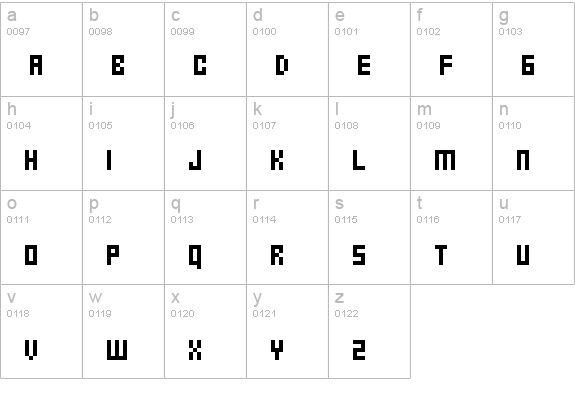
Ernest Font Details
Ernest font is a modern and elegant typeface that exudes sophistication and style. Its clean lines and sleek design make it perfect for a wide range of design projects, from branding to editorial work. The versatility of Ernest font allows it to be used in both digital and print media with ease. One of the best things about Ernest font is that it is completely free to download. Yes, you read that right - this high-quality font is available for free at FontsMarket.com! Whether you are a seasoned designer looking to add a new font to your collection or a beginner searching for the perfect typeface for your project, Ernest font is a fantastic choice that won't cost you a penny. Don't miss out on the opportunity to enhance your designs with the beauty and sophistication of Ernest font. Download it for free today and take your projects to the next level!